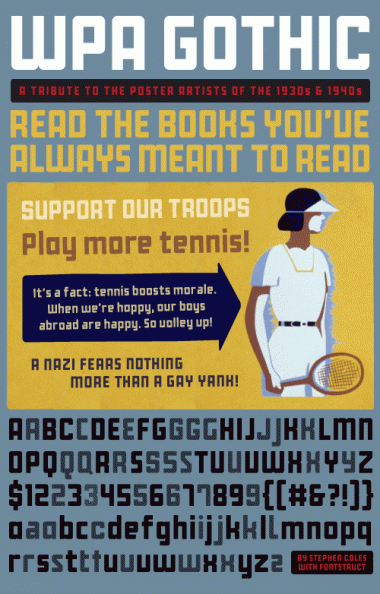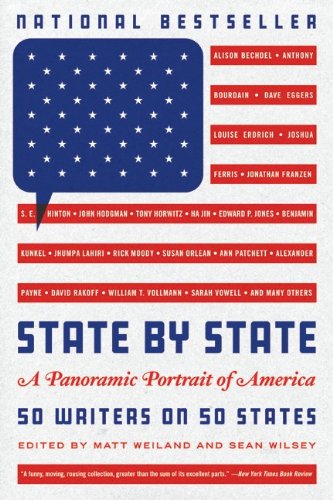
The Works Progress Administration (W.P.A.) was the largest agency of FDR's "New Deal", employing millions of people. Over 2,000 posters were produced by the W.P.A. to raise awareness and support the arts.
I have a lot of admiration for these posters and a style of sign painters' lettering (sometimes called “gas-pipe”) that was common in the U.S. during the 1930s-'40s. WPA Gothic gets much of its inspiration from this poster in particular. This FontStruction stays true to the sample’s simple letterforms, but the FontStruct grid does present a few limitations. For more refined typefaces in this style check out DDC Hardware, Futura Display, FF Golden Gate Gothic, Refrigerator, and MVB Solano Gothic by some of my favorite type designers, two of which (Parkinson and Van Bronkhorst) are East Bay natives.
WPA Gothic has a few alternate glyphs hanging out in the Extended Latin slots with more to come.
To get a look at the typeface outside the confines of the FontStruct sampler, here's a sample poster.
May 25, 2008: Released a variation with low-waisted "deco" caps.
2019: 10 year anniversary update!
– Loosened the spacing a tad more.
– Added a few punctuation marks, including dashes, bullets, and inverted question/exclamation marks.
– Tightened ‘f’ spacing.
– Lengthened the quotes and apostrophes. They were so wee!
– And I fixed that Å! It’s not pretty, but it’s a ring.
I love this font. Too bad that support for most extra latin characters is missing. Besides that, it's perfect. :)
Thanks, galo. Diacritics are on the way. Check again later this week.
Very pro font, i like it!
Gorgeous typeface! Would you mind if i try to add cyrillic alphabet?
Please do, Anton. You certainly would do a better job than I. All I ask is that you name it WPA Gothic Cyrillic.
Diacritics added. Western language support complete.
Great work, Stewfer! Until now I was only familiar with the results of another New Deal program, the Farm Security Administration (FSA). I love this font and the posters that inspired it! Thanks for all of the links, too!
I like WPA Gothic with those alternates
Just amazing...10 points! (artwork too...it has that WPA "feeling" and its so...funny!)
I´m working on a type from a poster of Jerome Roth (1936 WPA) too...
Heads of State used WPA Gothic on a book cover. Yay.
And customized it for the new Brokelyn.com?
Congratulations Stewf. That's great to see. Is this "State By State" cover for the paperback edition? I own the hard cover version which sports a different design.
Yes, it's the new paperback edition.
Congratulations on the use of your font, WPA Gothic, on the cover of "State by State." This is a wonderful achievement and adds additional legitimacy to fonts created here at Fontstruct; as well as the typographers who continue to passionately and arduously strive to make something significant from these simple little bricks. Salute.
Hi stewf - I am a pro musician with a graphic design background. I love this font, the guy I use for design proposed using your font, and it was the only thing close to what I wanted. Now that I understand a little more of the history that informs it, I know we couldn't have chosen a more perfect font!